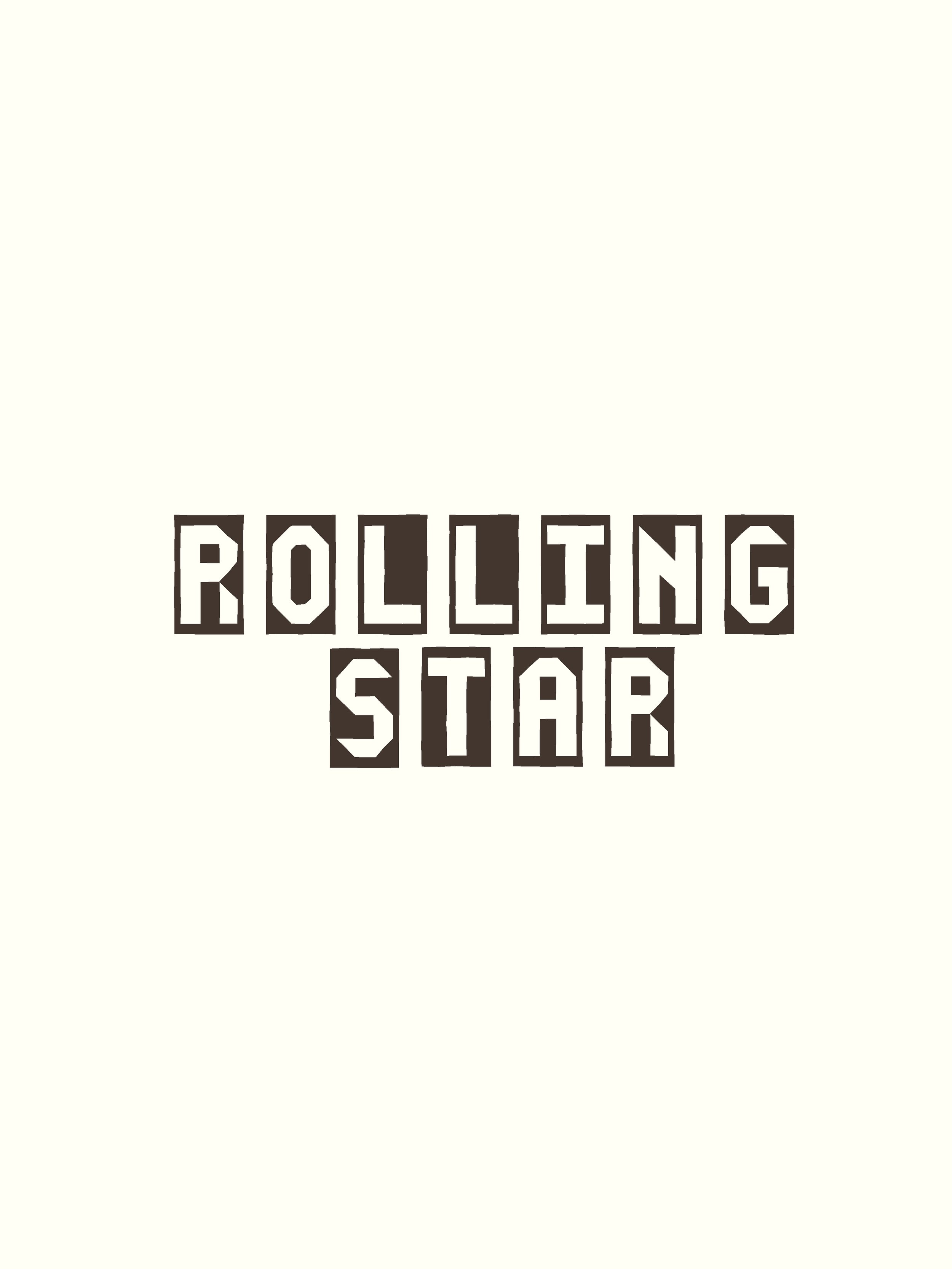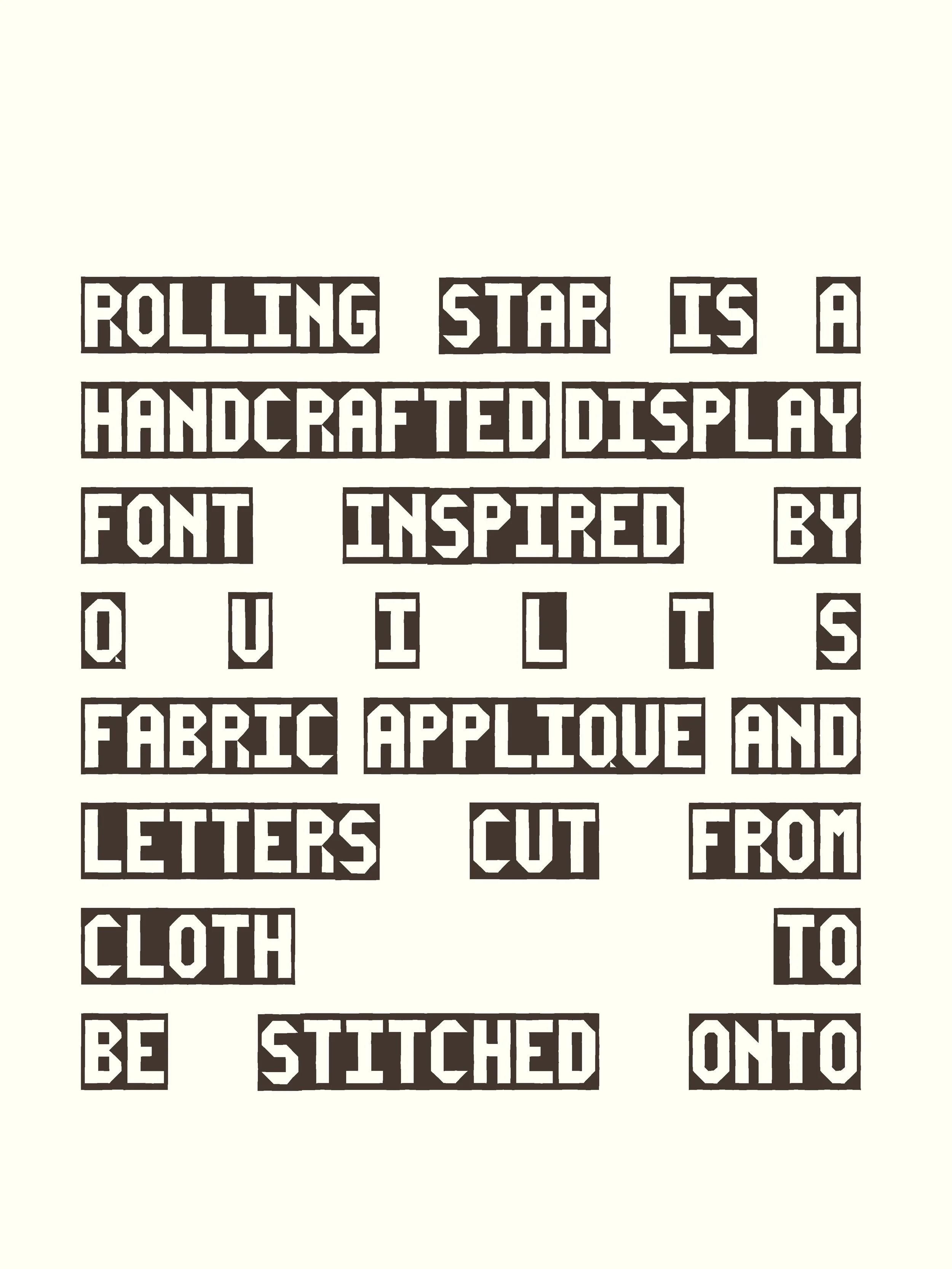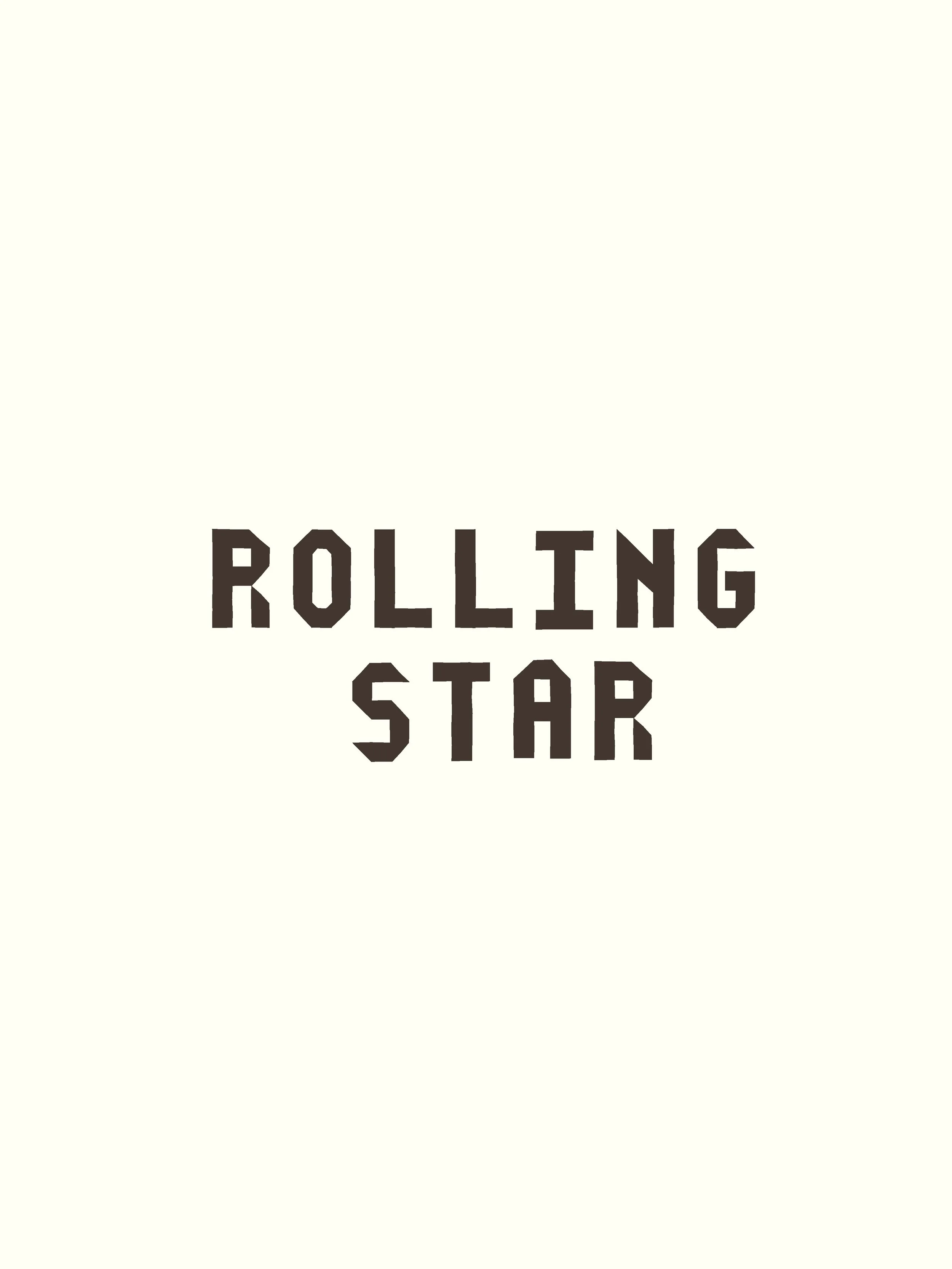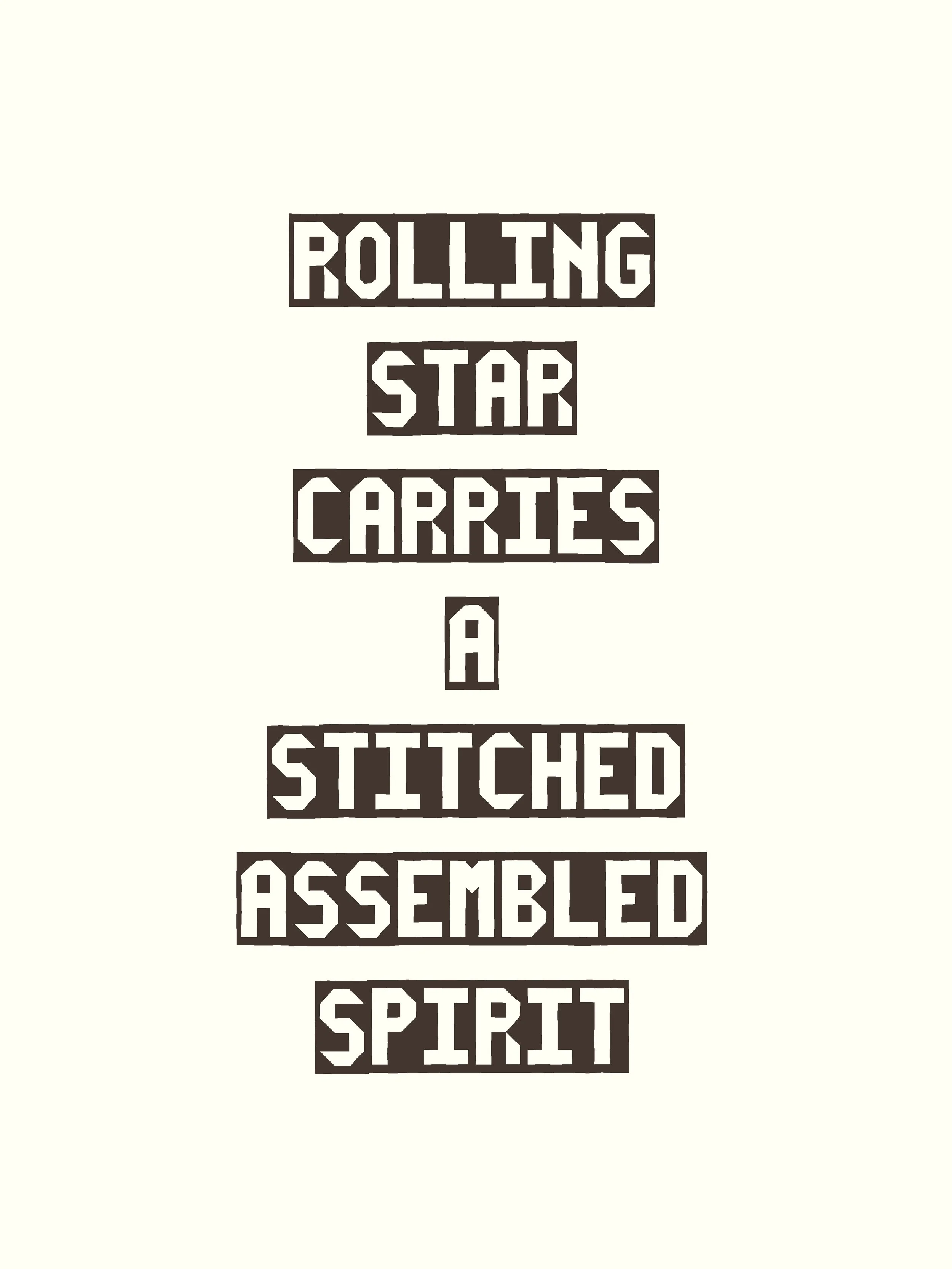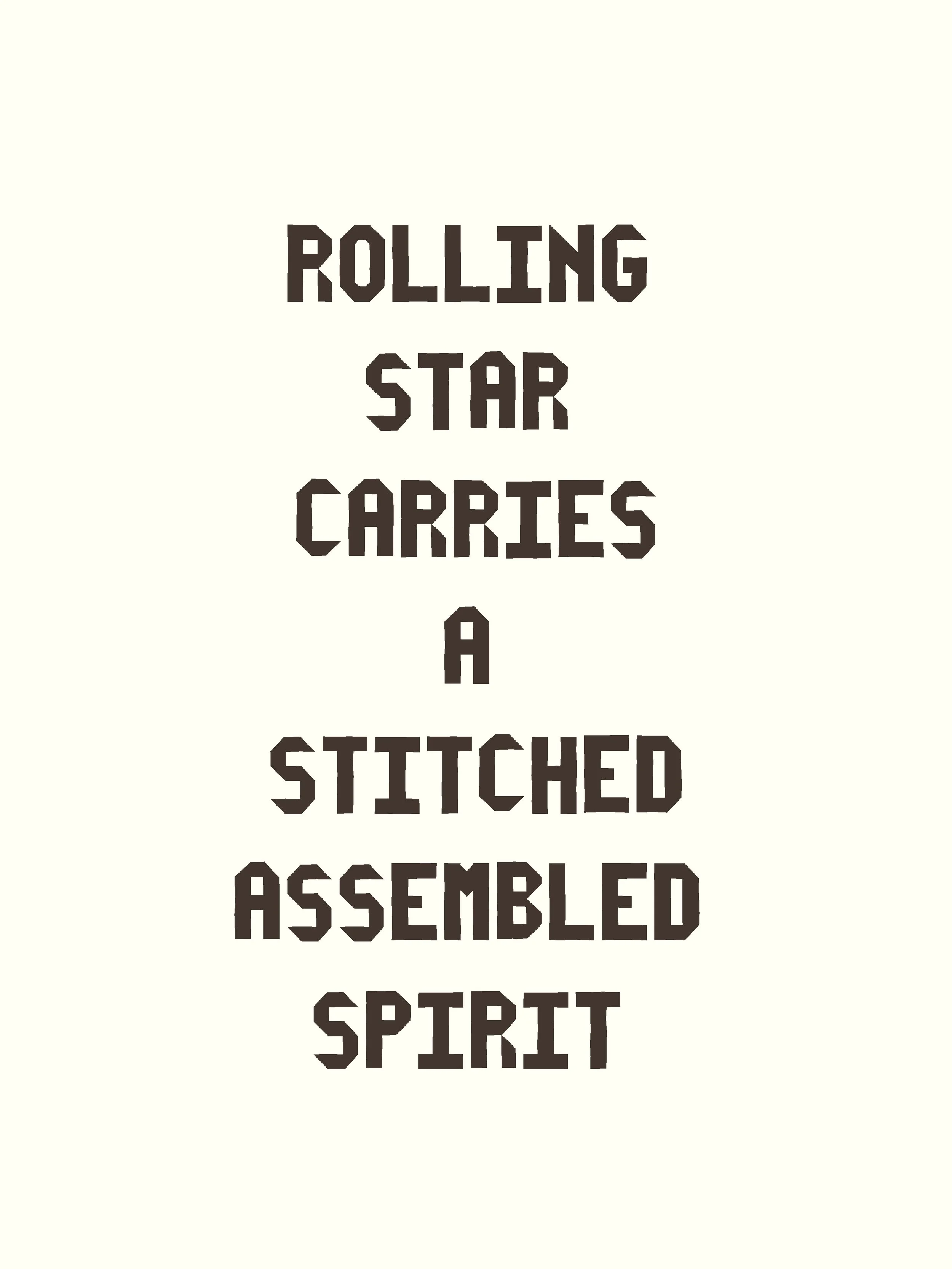
Rolling Star | Hand Crafted Font
Rolling Star is a hand-crafted display font inspired by quilts, fabric appliqué, and letters cut from cloth to be stitched onto flags and banners to communicate a message. It draws from the tradition of fibre arts as language — words pieced together slowly, sewn into surface, and carried by hand.
Historically, banner-making and textile lettering have often been women’s work: messages cut from fabric, patched into place, and raised publicly when other avenues of authorship were limited. ROLLING STAR carries that stitched, assembled spirit forward — letters that feel constructed rather than drawn, pieced together like a quilt block.
This font embraces perfectly imperfect edges. Forms wobble slightly. Alignment resists rigidity. The irregularities are intentional — echoing hand-cut fabric, visible fibres, and patchwork seams. It is not polished or corporate; it is tactile, human, and built piece by piece.
While rooted in quilting and fibre traditions, ROLLING STAR is equally at home on sports banners, handmade flags, community signage, vintage-inspired graphics, and anything that calls for a crafted, nostalgic, and slightly distressed touch.
Perfect for:
• Sports banners and handmade-style flags
• Vintage-inspired posters and signage
• Community events and grassroots graphics
• Album artwork and screen-printed merch
• Branding that leans into fibre arts, craft, and texture
• Uppercase A–Z — plain, unframed letterforms
• Lowercase a–z — letters set within block-quilt backgrounds
• Alternate W & w letterforms — accessible via alternates in your design software
Rolling Star is purposefully imperfect. This is intentional and central to the aesthetic — reflecting hand-cut fabric, patchwork construction, and the honest irregularities of handmade work.
Rolling Star is both a tool and a tribute — honouring textile language, banner-making traditions, and the expressive power of craft assembled by hand.